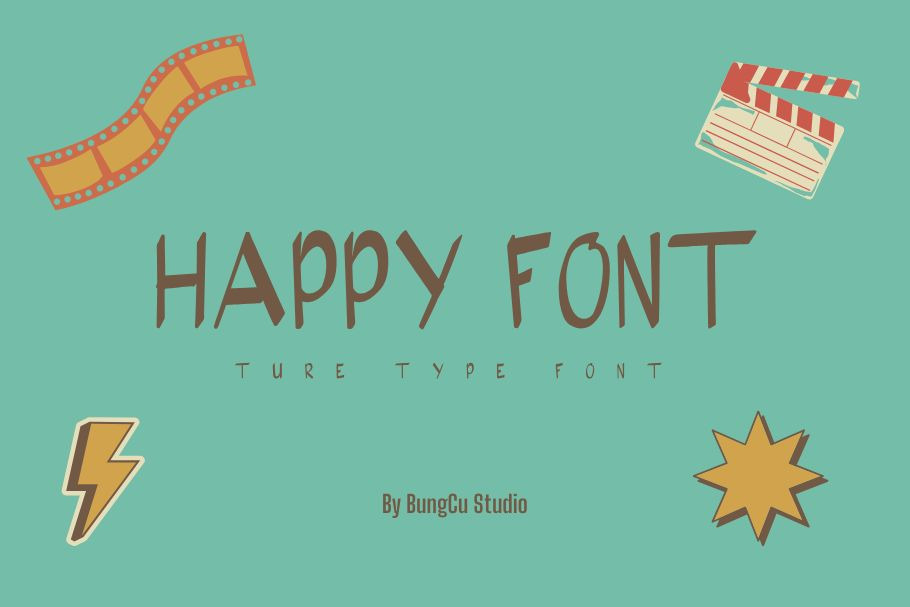
Happy Font
Happy Font – More than just a font, Happy Font is an expression of joy and happiness. With its free-flowing, handwritten style and full of character, this font will bring life to any design. Perfect for projects that want to leave a positive and unforgettable impression, such as:
Children's designs: Storybooks, children's event posters, kids' room decor Product branding: Food and beverage products, casual apparel, beauty products Social media design: Promotional posters, creative content, engaging stories Invitations: Weddings, birthdays, family events Why choose Happy Font?
Unique and original: Handwritten design you won't find in other fonts. Memorable: The strong font character will make your brand or message more memorable. Versatile: Suitable for a variety of designs, both print and digital. Premium quality: Available in various file formats with high resolution.